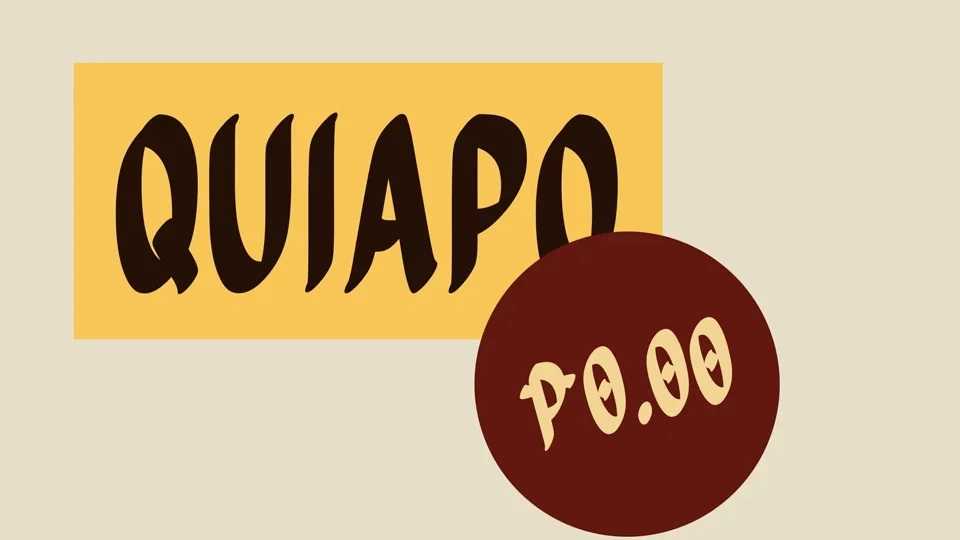
Download Quiapo Free font, a brush typeface dedicated to the Filipino Sign makers, Jeepney drivers, and the daily commuters in the streets of Metro Manila and anywhere in the Philippines.
Designer: Aaron Amar